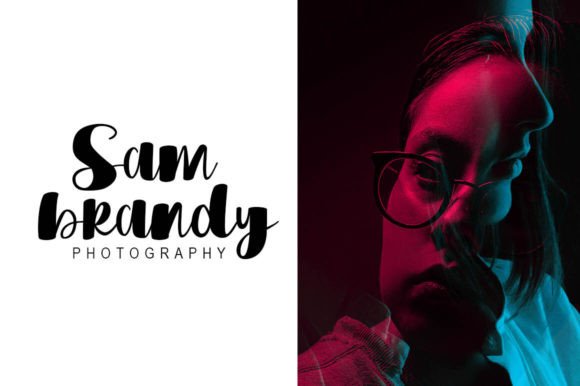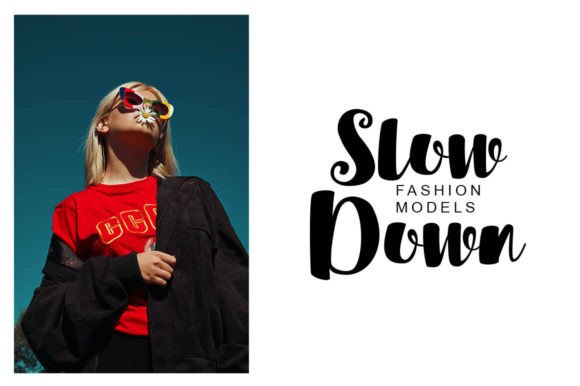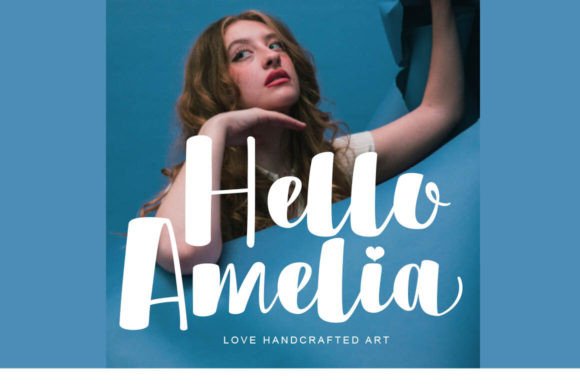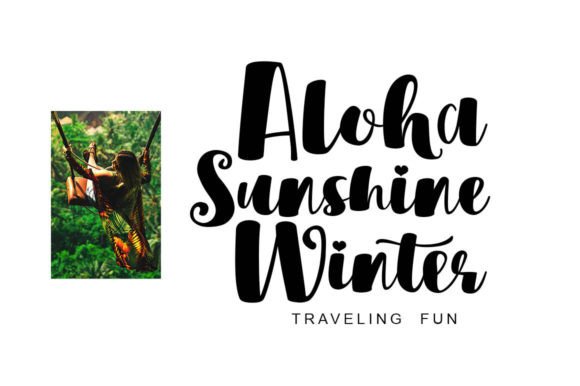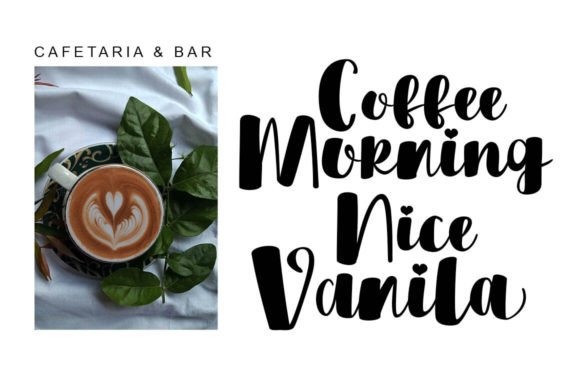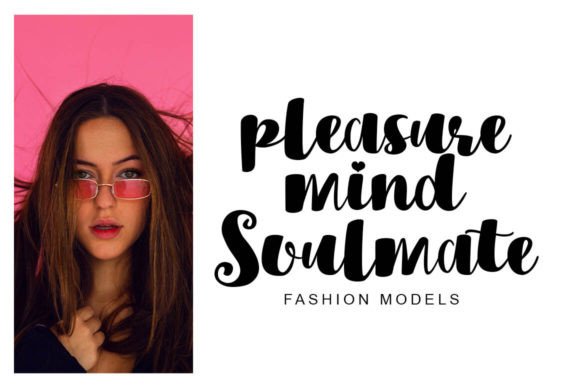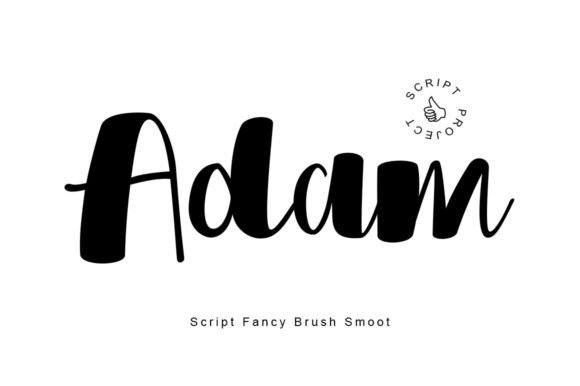
Introducing Adam: The Modern Calligraphy Script Font You Need
Have you ever been in the middle of a design project, only to find yourself stuck on the perfect font? I recently had this experience while working on a branding project for a luxury wedding planner. The client wanted a sophisticated, elegant feel, but I just couldn’t find the right fit. That was until I discovered Adam, a stunning fancy handwritten typography font that combines classic style with modern calligraphy.
What Makes Adam Special?
Adam is more than just a beautiful font – it’s a collection of OpenType features that will take your designs to the next level. With Adam, you’ll get:
- Stylistic Alternatives for varied typography
- Contextual Alternatives for natural flow
- Multiple characters for mixing and matching letter pairs
- ✨ Elegant, modern calligraphy style that’s perfect for luxury brands
- ✅ Highly versatile and adaptable to various design projects
- 💫 Beautiful OpenType features that add an extra layer of creativity
- 🤔 Some users may find the font a bit tricky to use for body text, due to its elegant, cursive nature
The Designer Inspiration Behind Adam
Adam was created with the goal of combining classic calligraphy styles with modern typography. The designer, inspired by the works of legendary calligraphers, aimed to create a font that would be both elegant and versatile. With Adam, you’ll get the best of both worlds – a beautiful, sophisticated font that’s perfect for a wide range of design projects.